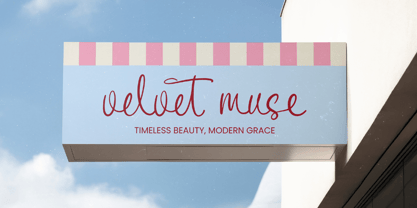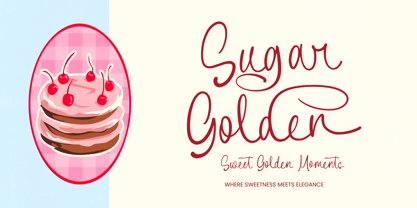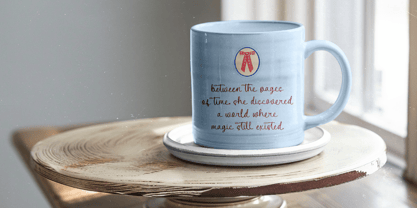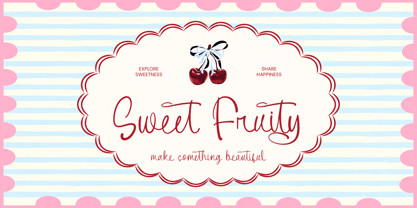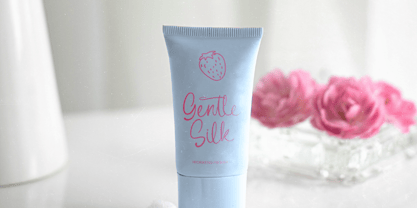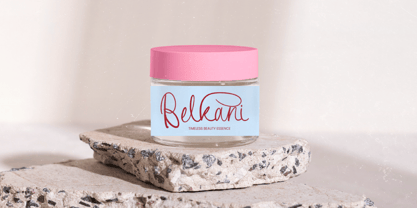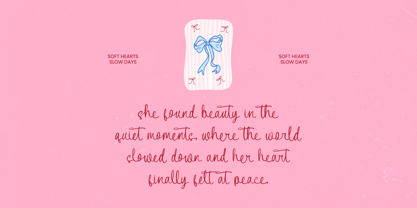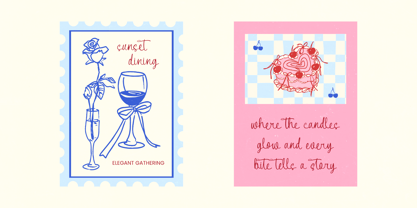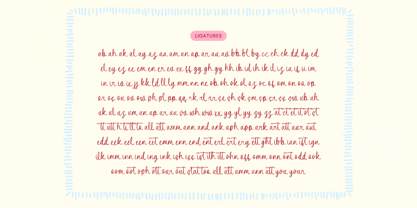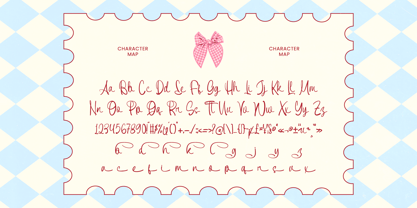
Sweet Fruity
von Letterena Studios
Die Schriftfamilie Sweet Fruity wurde von Heru Utama Putra entworfen und von Letterena Studios veröffentlicht. Sweet Fruity enthält 2 Stile und Familienpaketoptionen. Mehr über diese Familie
Sweet Fruity - Aesthetic Handwritten
Elevate your creative vision with a touch of organic charm and sophisticated fluidity. The Sweet Fruity - Aesthetic Handwritten font is a premium script typeface designed to bring handcrafted elegance to every digital or print project. Its rhythmic flow and natural connections evoke an authentic personality, making it an essential asset for designers seeking to convey warmth and visual storytelling in their professional compositions.
Designer: Heru Utama Putra
Foundry: Letterena Studios